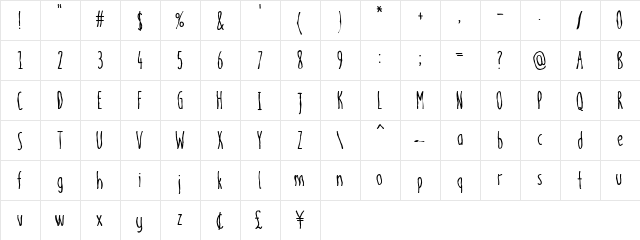
men in pink Regular
Design Context for men in pink Typeface
men in pink is a composed and adaptable typeface that performs quietly and consistently across a wide range of design contexts.